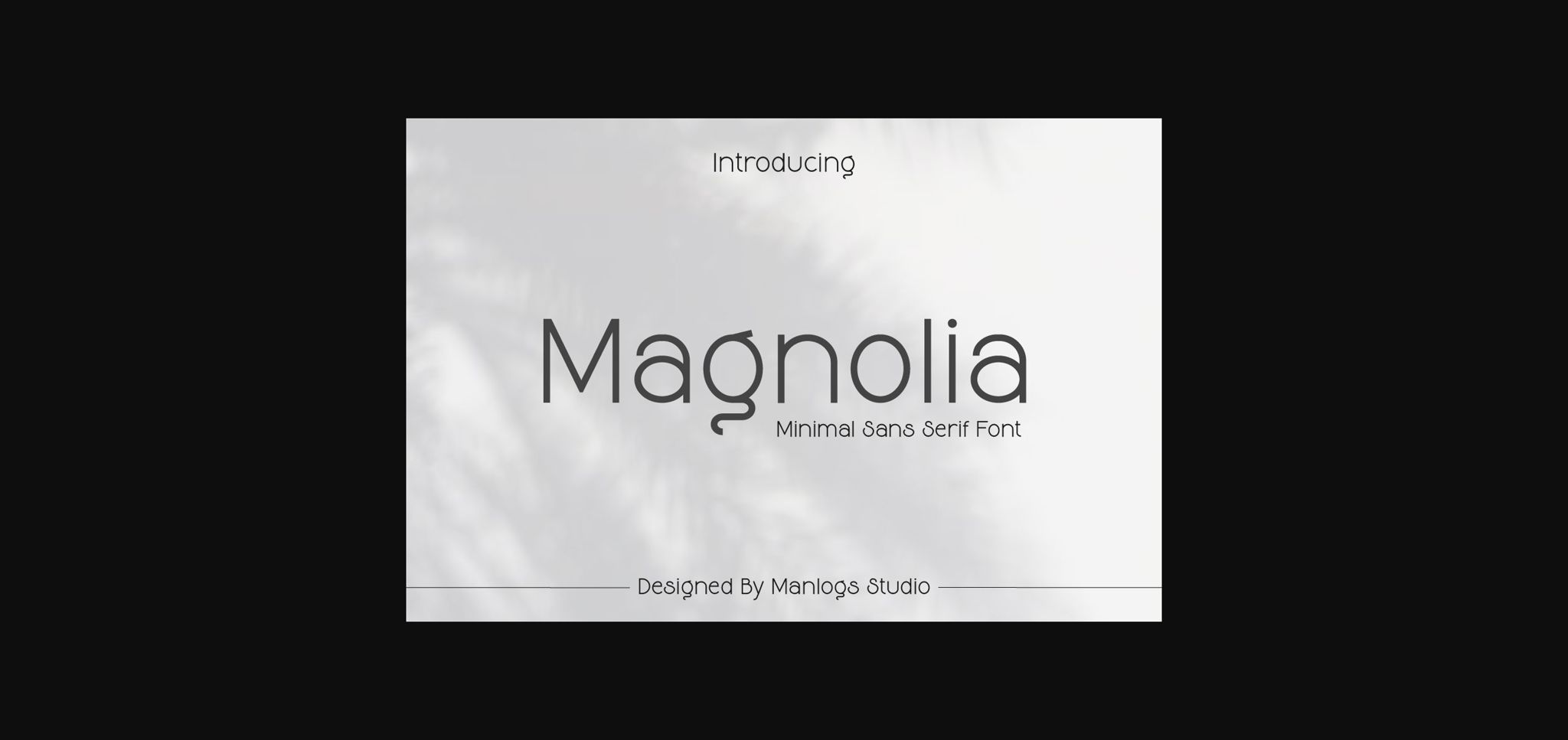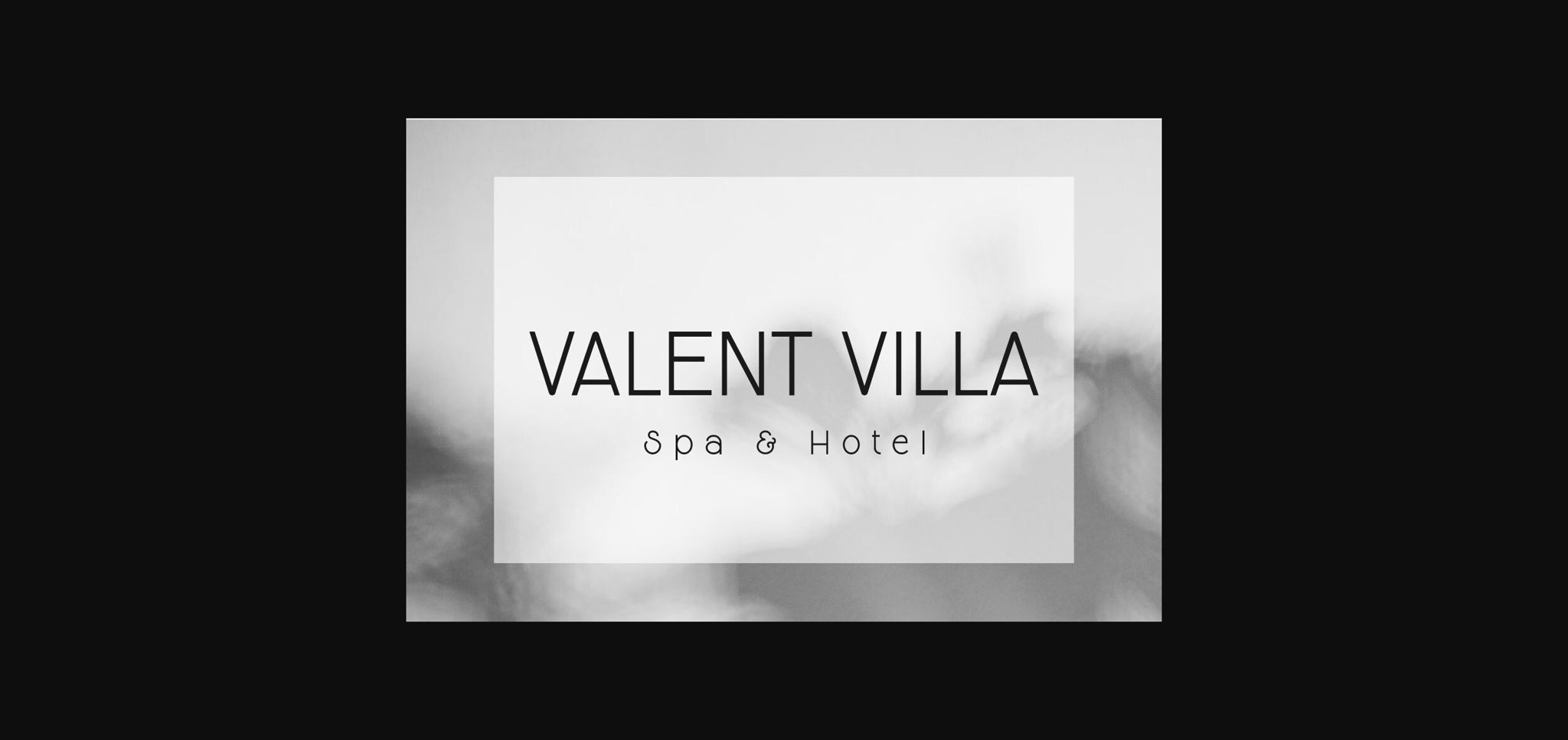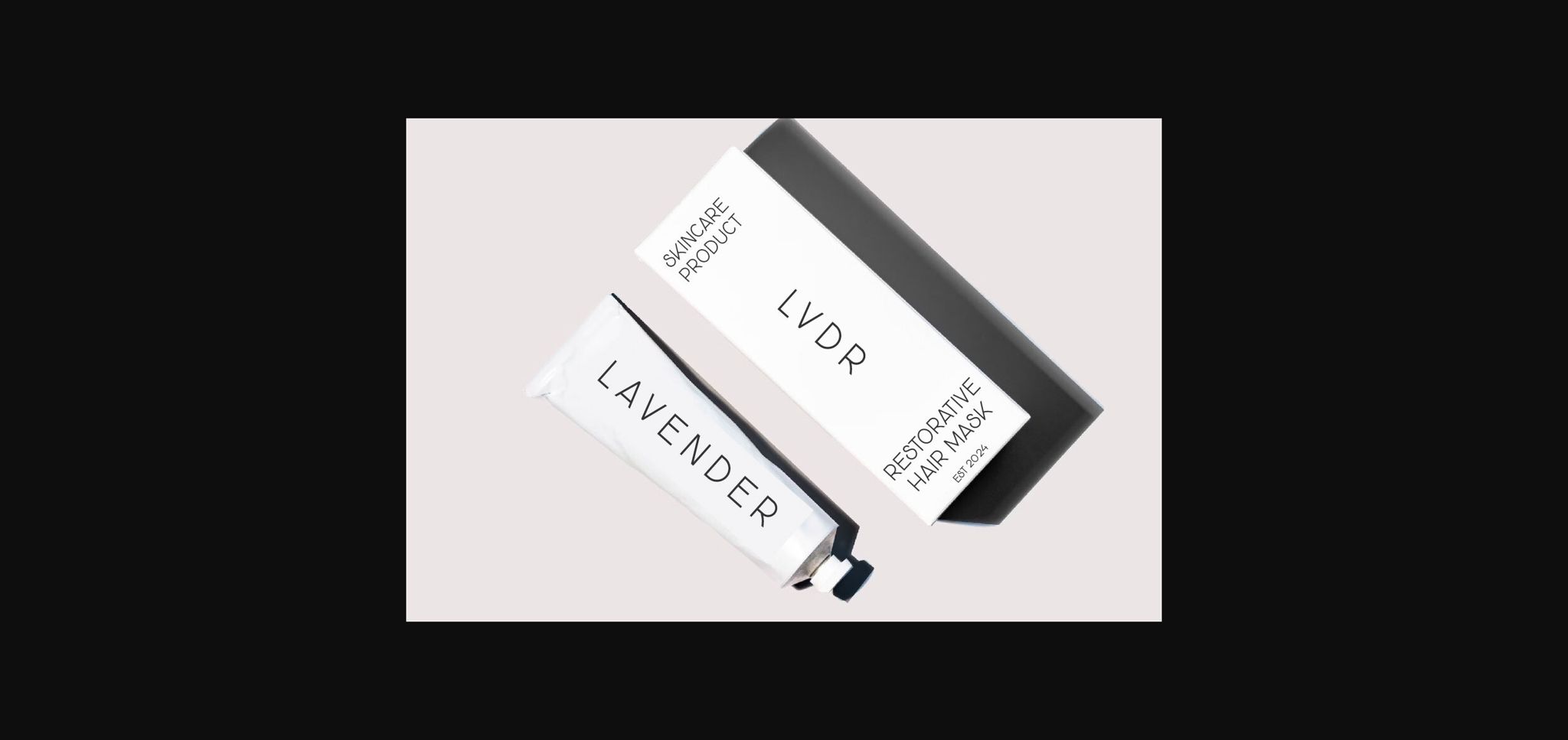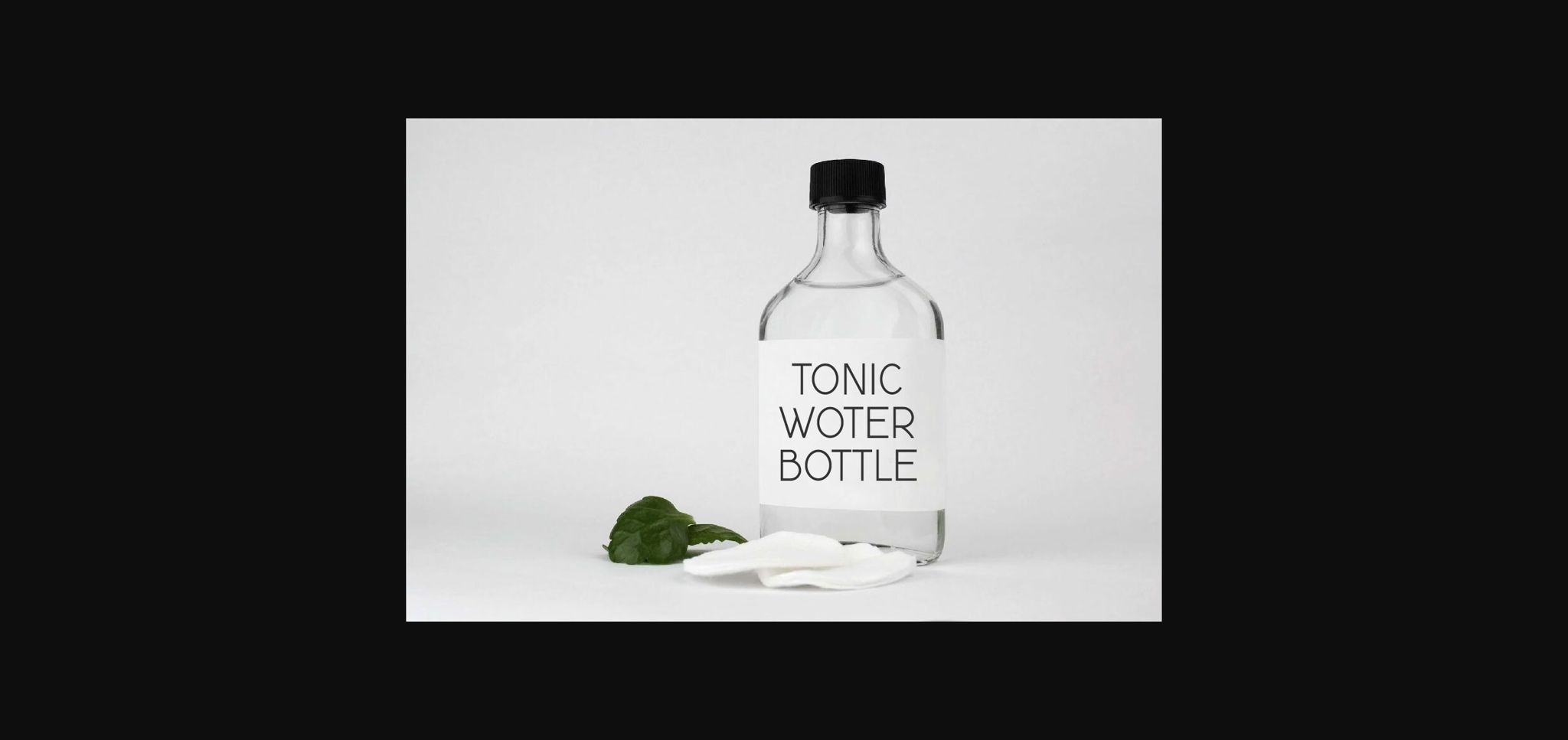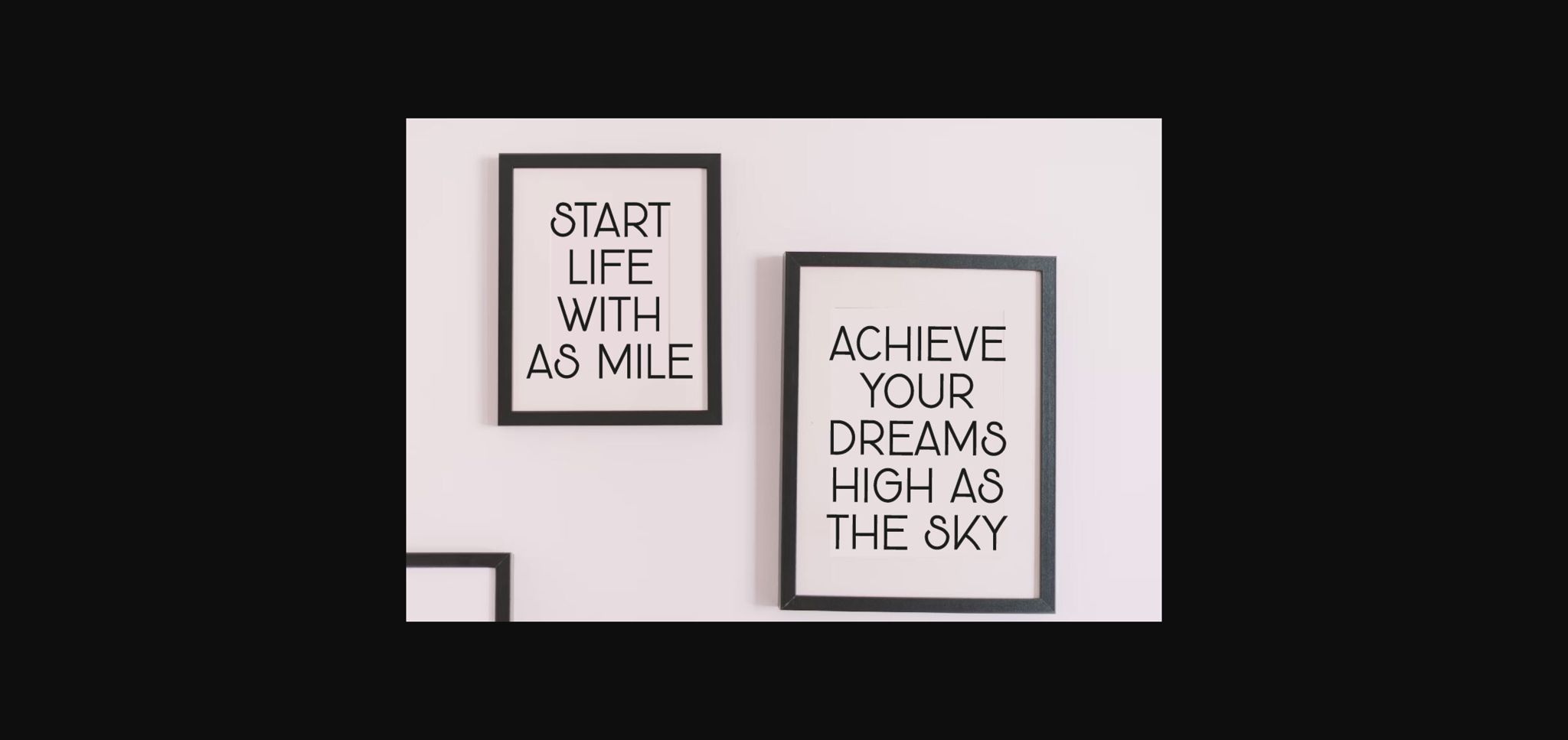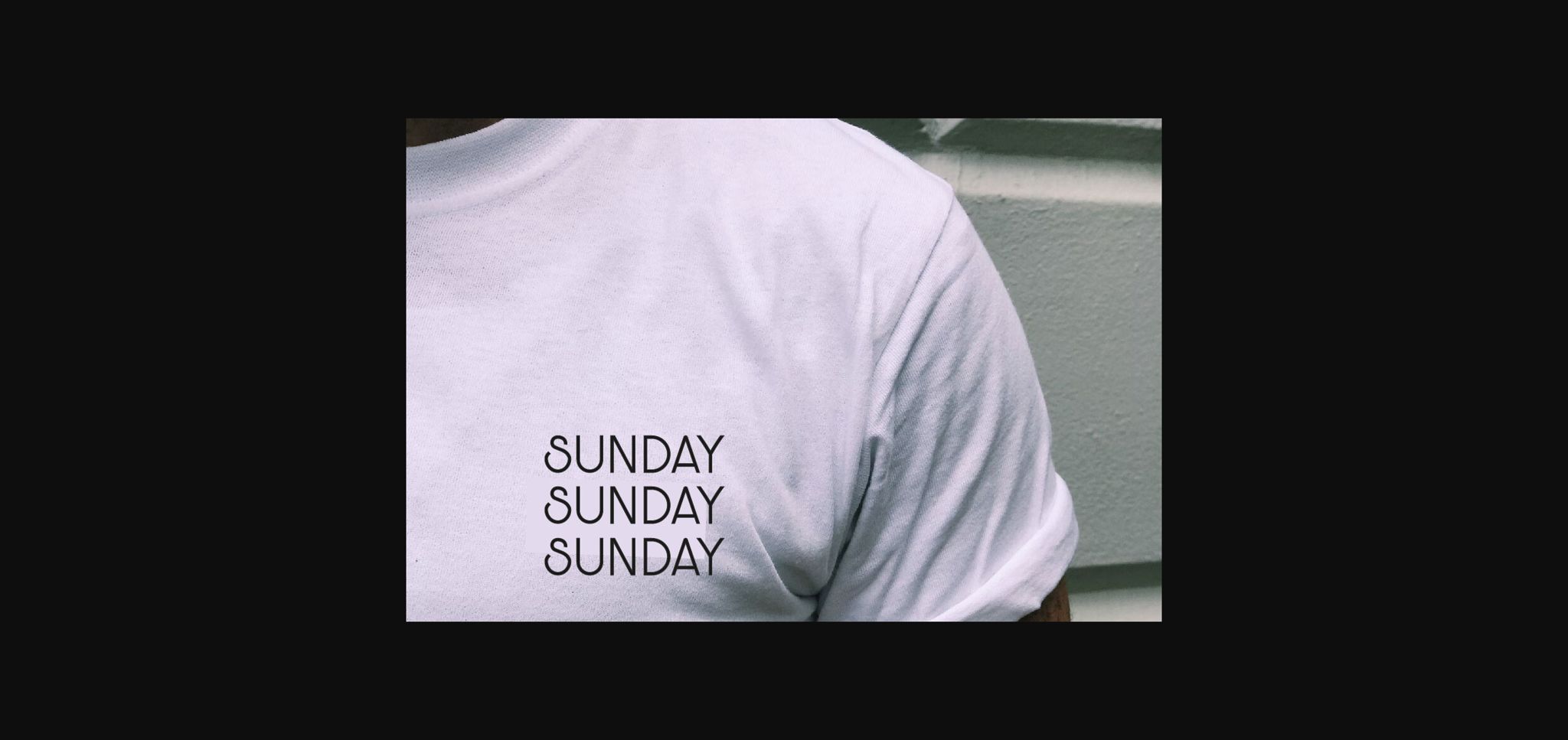
Magnolia Font
About Magnolia Font
Magnolia is a minimalist sans-serif font, that embodies simplicity and clarity in design. Its clean lines and uncomplicated letterforms convey a sense of modern elegance. This font is perfect for advertising, craft design, headings, blogs, logos, quotes, t-shirts, gift labels, branding, and more!